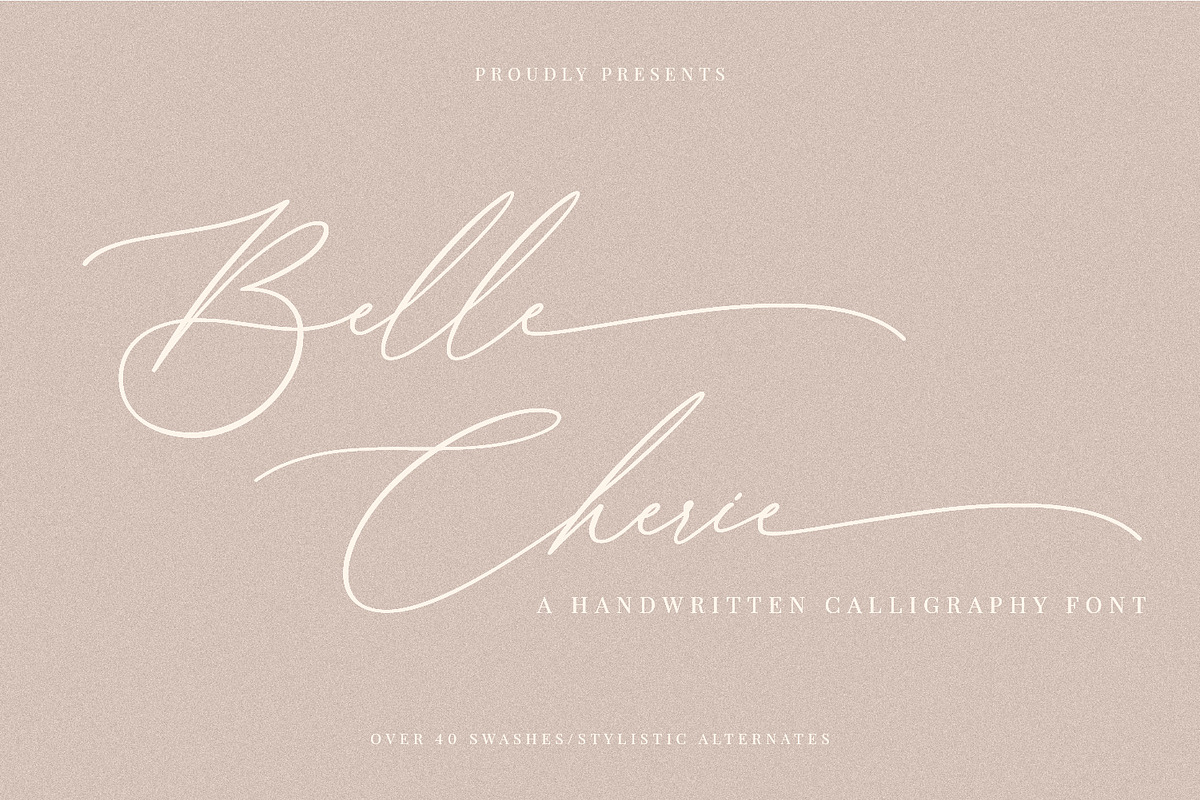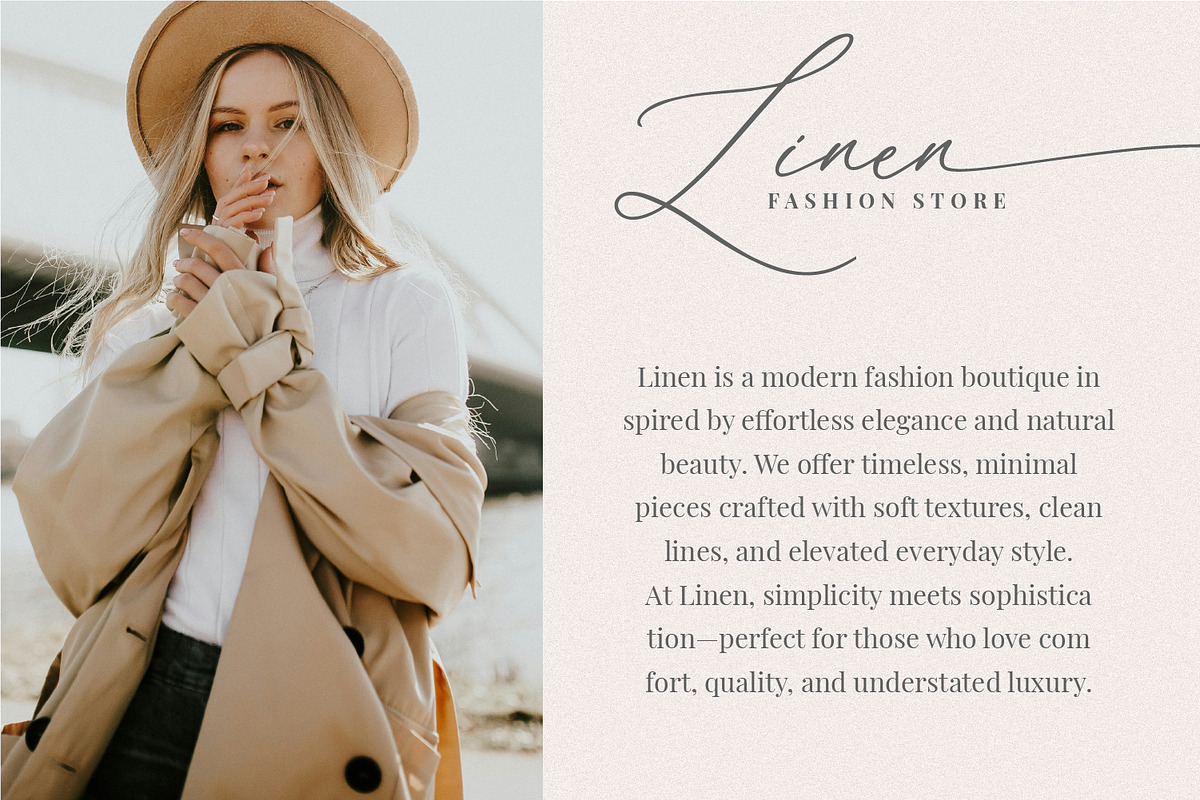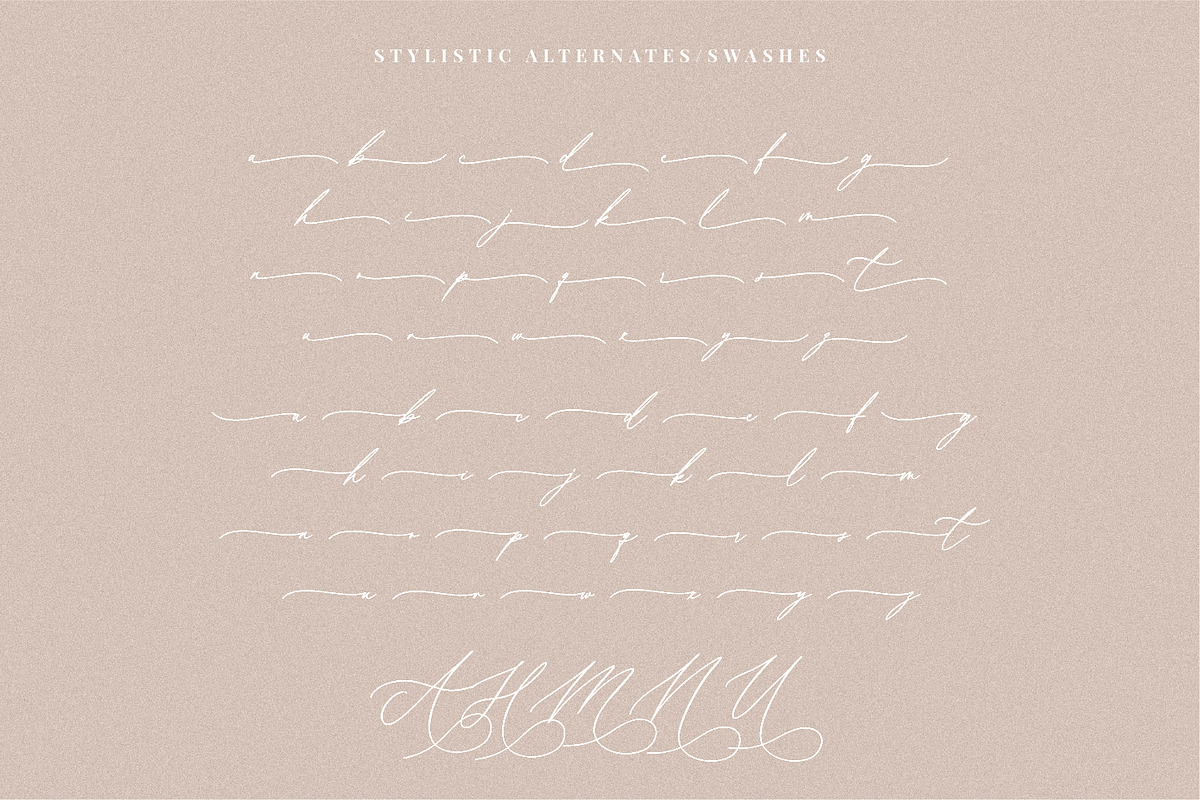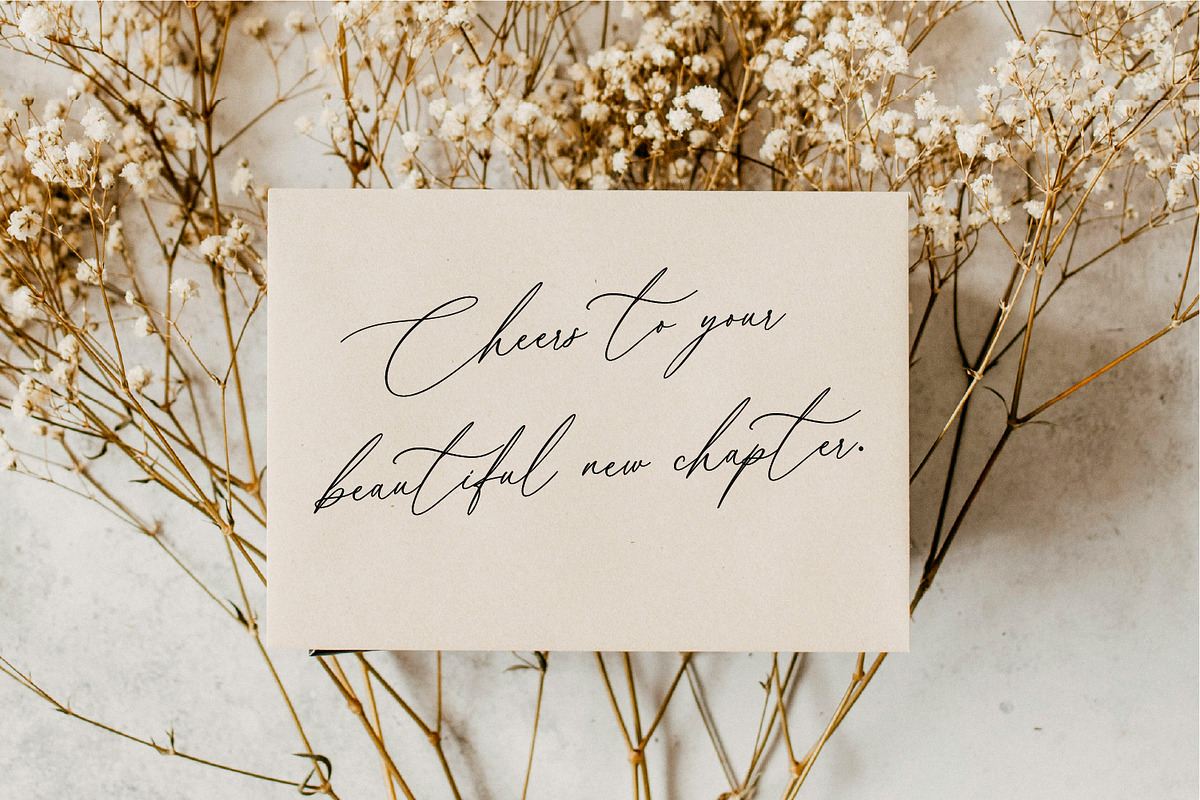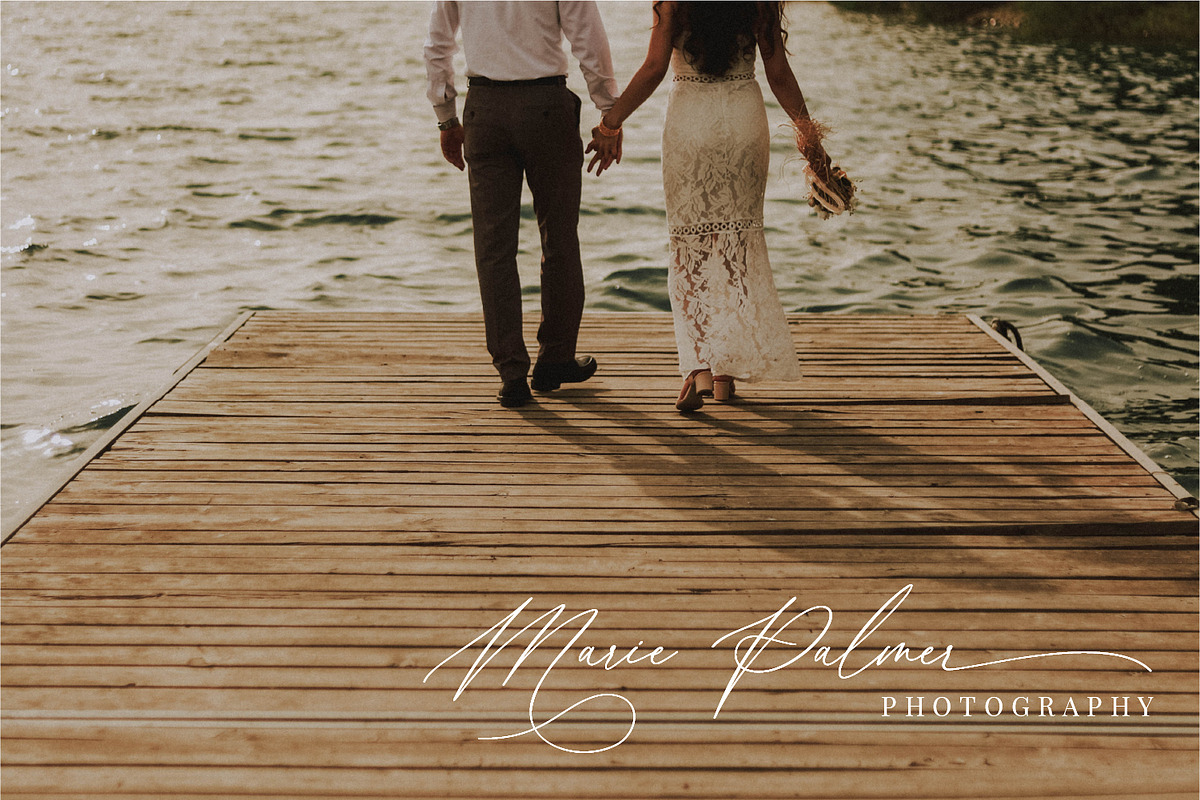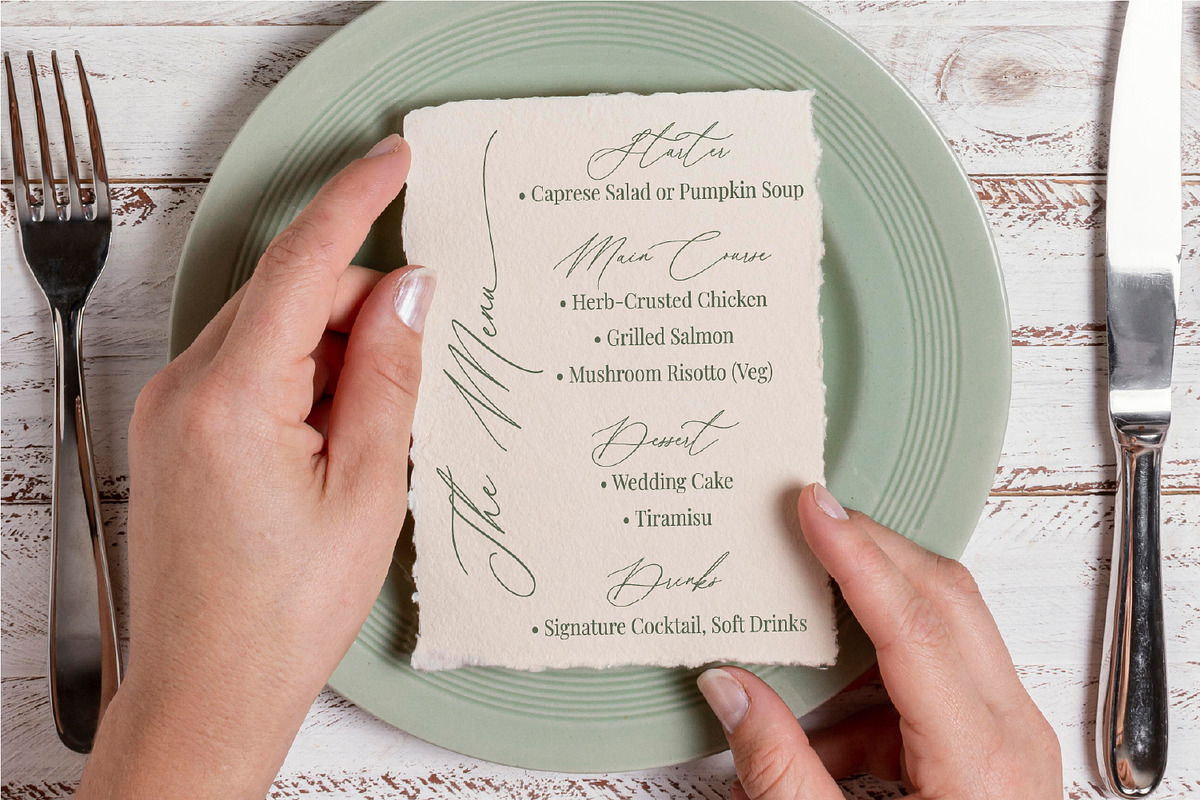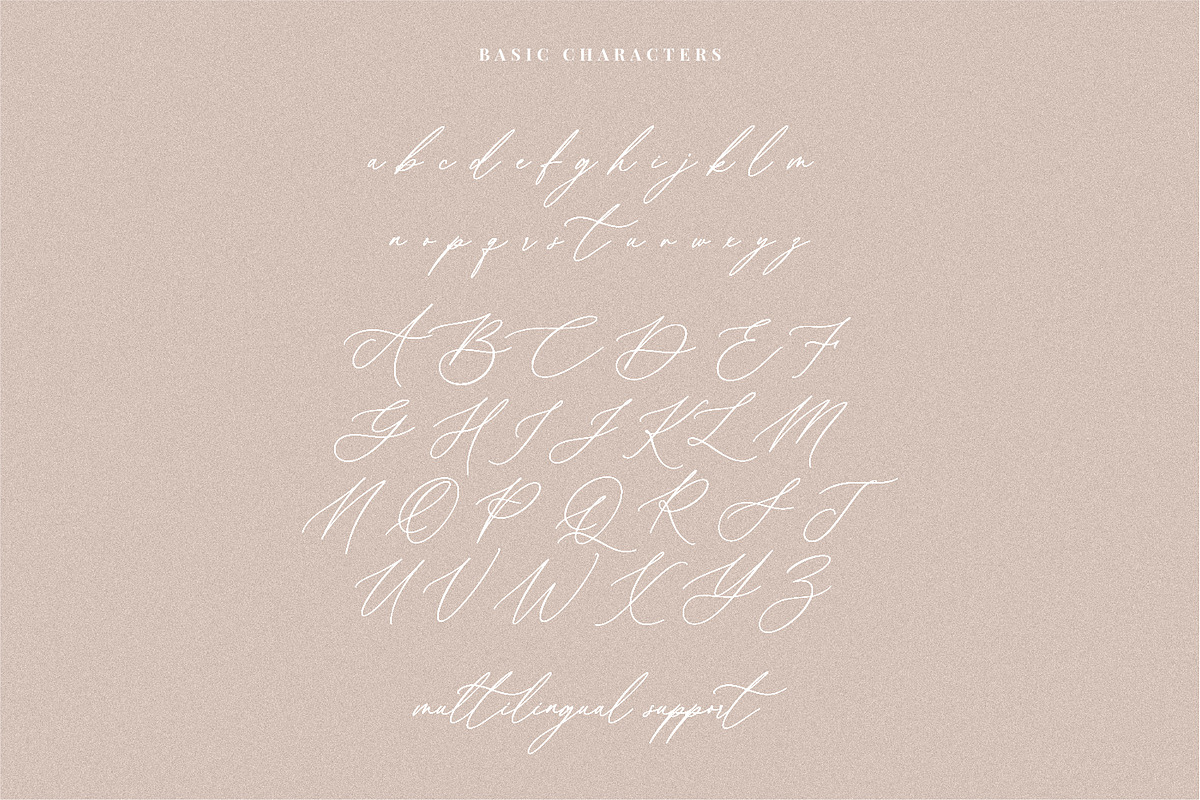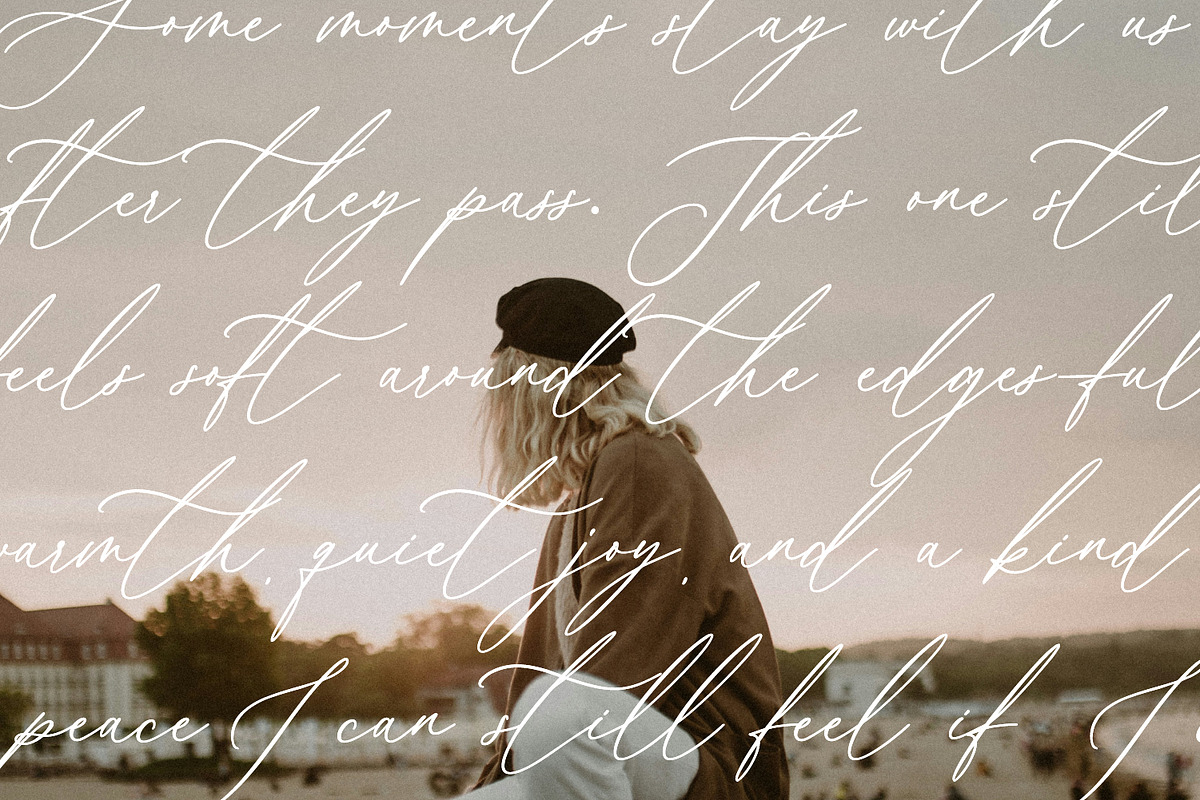
Belle Cherie A Calligraphy Font
✨ Belle Cherie – Elegant Calligraphy Font✨
Give your designs the beauty, grace, and luxury they deserve. Belle Cherie is a modern handwritten script font crafted to bring effortless elegance to branding, invitations, and creative projects. With smooth curves, natural flow, and refined femininity, this font instantly elevates anything you create.
💖 What Makes Belle Cherie Special
Belle Cherie was designed for creators who want a font that’s both beautiful and highly functional. Every stroke is polished, every connection is smooth, and every swash is crafted to add professional, eye-catching detail.
Your designs can speak to clients everywhere.
Belle Cherie includes full Latin support, covering:
Basic Latin
Western European
Central European
South Eastern European
South American
Oceanian languages
This ensures your branding, invitations, and digital products are fully accessible to a global audience.
✨ Perfect for Every Creative Project
Belle Cherie shines in: ✨ Wedding invitations & save-the-dates ✨ Luxury branding & boutique logos ✨ Instagram posts, quotes & social media graphics ✨ Packaging, product labels & stickers ✨ Journals, printables & stationery ✨ Feminine business branding and more
If you want your work to feel soft, romantic, and professionally designed, this font delivers that polished look instantly.
Whether you’re a designer, business owner, or creative hobbyist, Belle Cherie gives your projects a luxurious, high-end aesthetic. It’s elegant, versatile, and built to make your designs stand out.